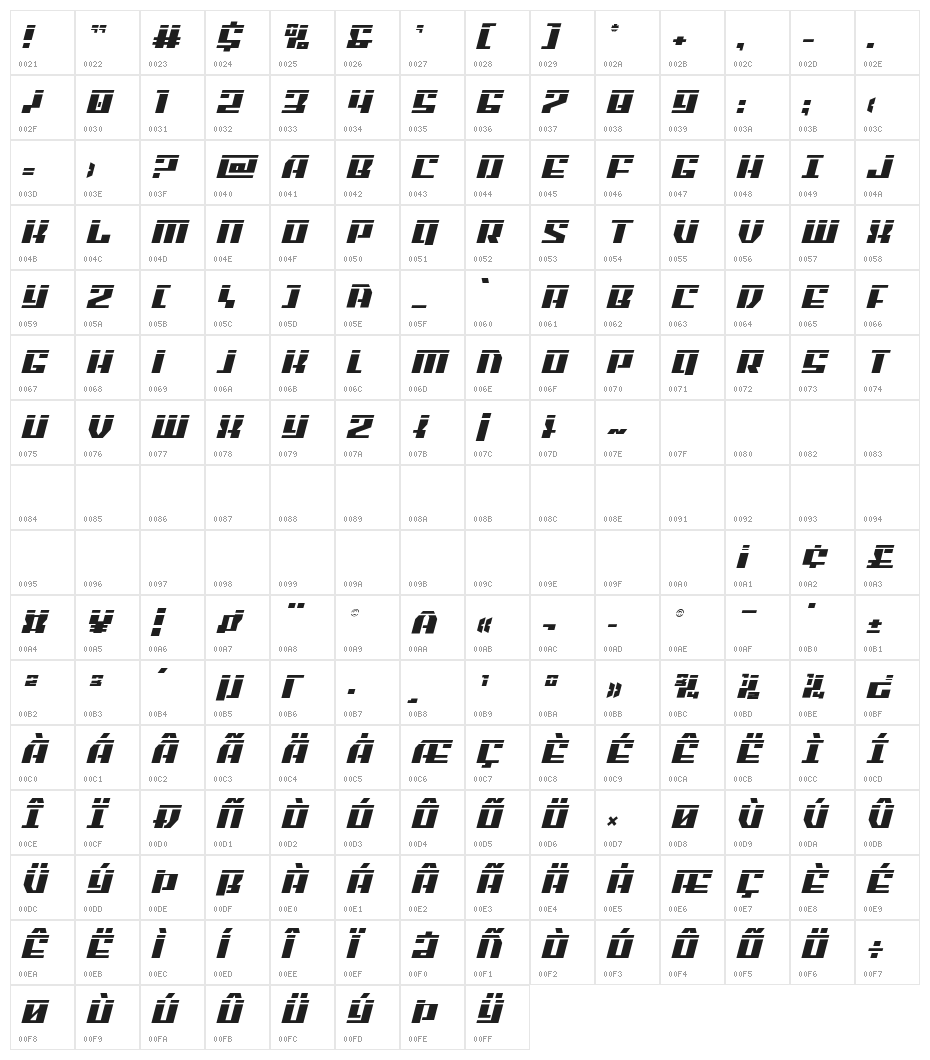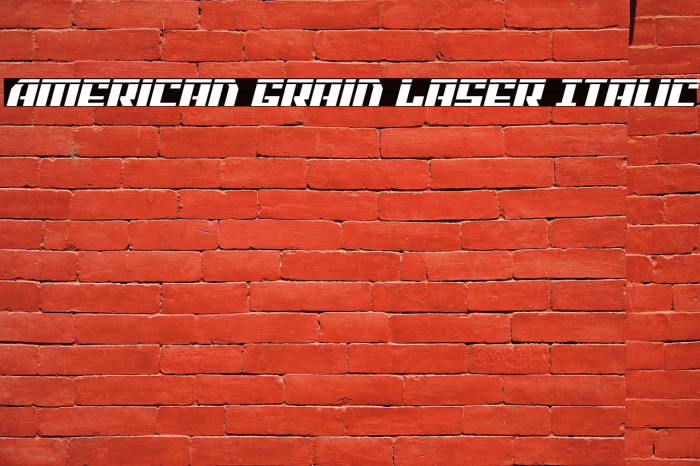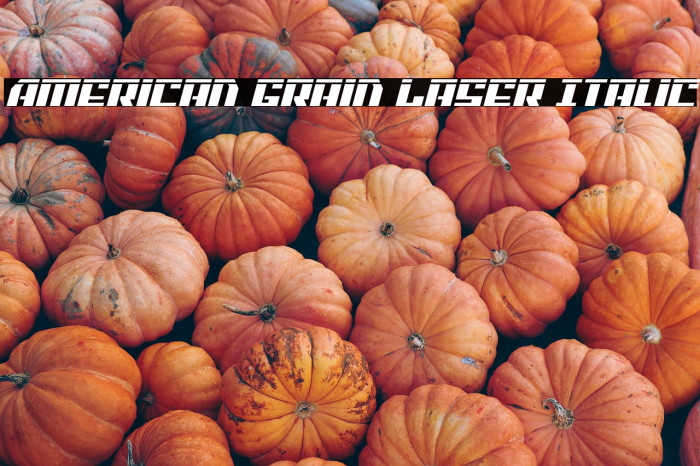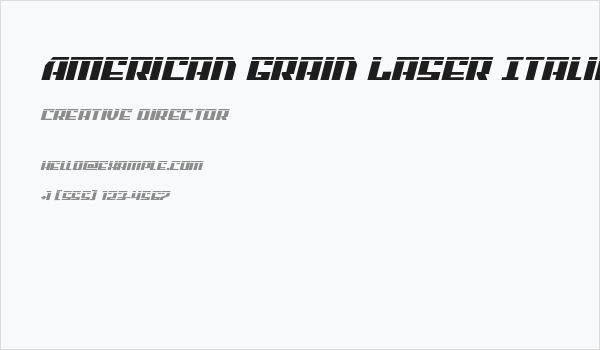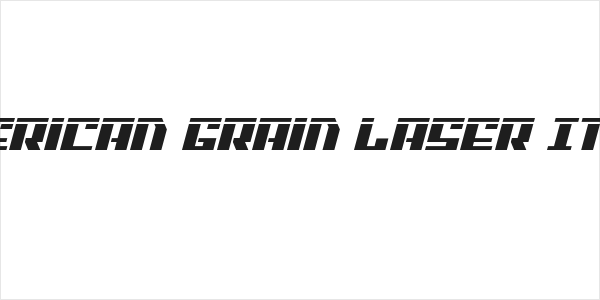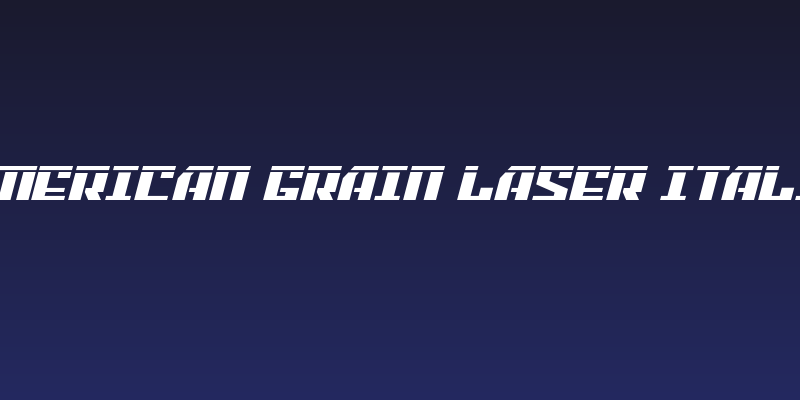
American Grain Laser Italic Font
American Grain Laser Italic Description
This font features a bold, geometric design with sharp angles and a futuristic aesthetic. The characters are italicized, adding a dynamic and forward-leaning appearance. The uppercase and lowercase letters maintain a consistent style, with a strong emphasis on horizontal lines and angular cuts. Numbers and special characters follow the same design principles, ensuring uniformity across all glyphs. The overall look is modern and edgy, suitable for projects that require a striking and impactful visual presence.
| Proposed Projects | Ideal for branding, posters, video game graphics, and sci-fi themed designs. |